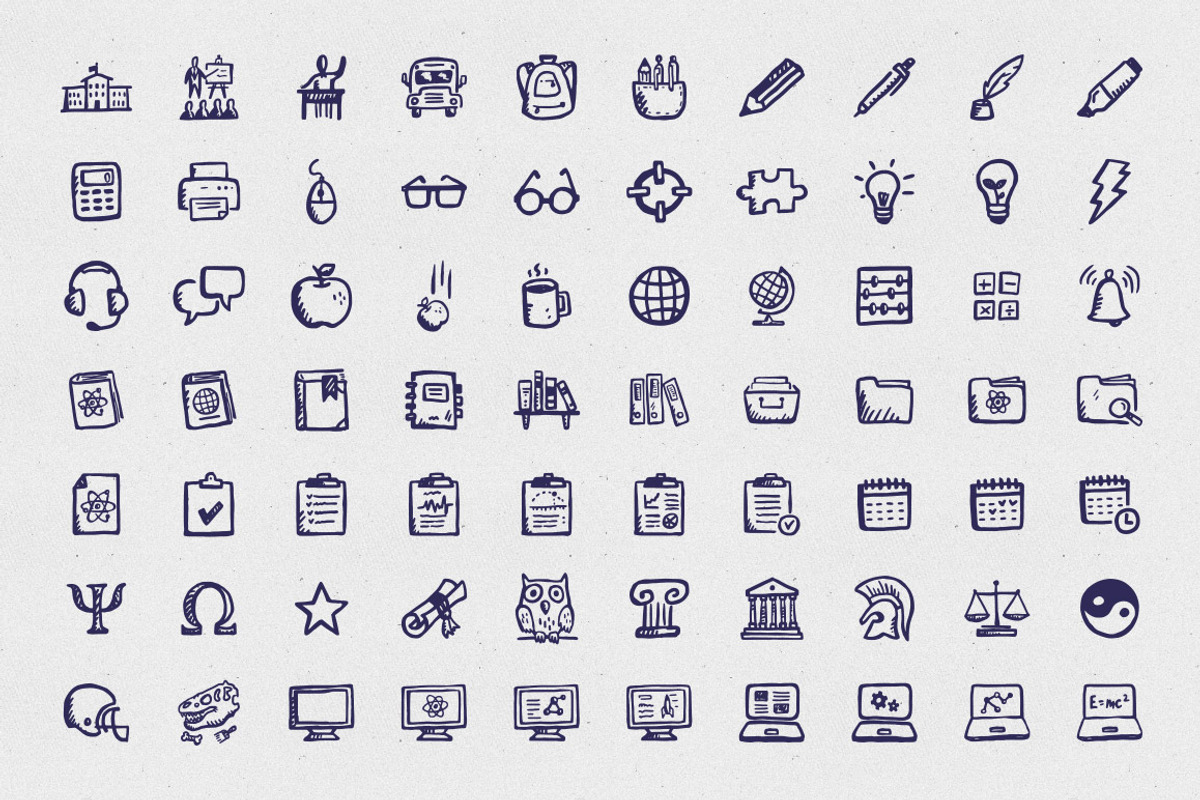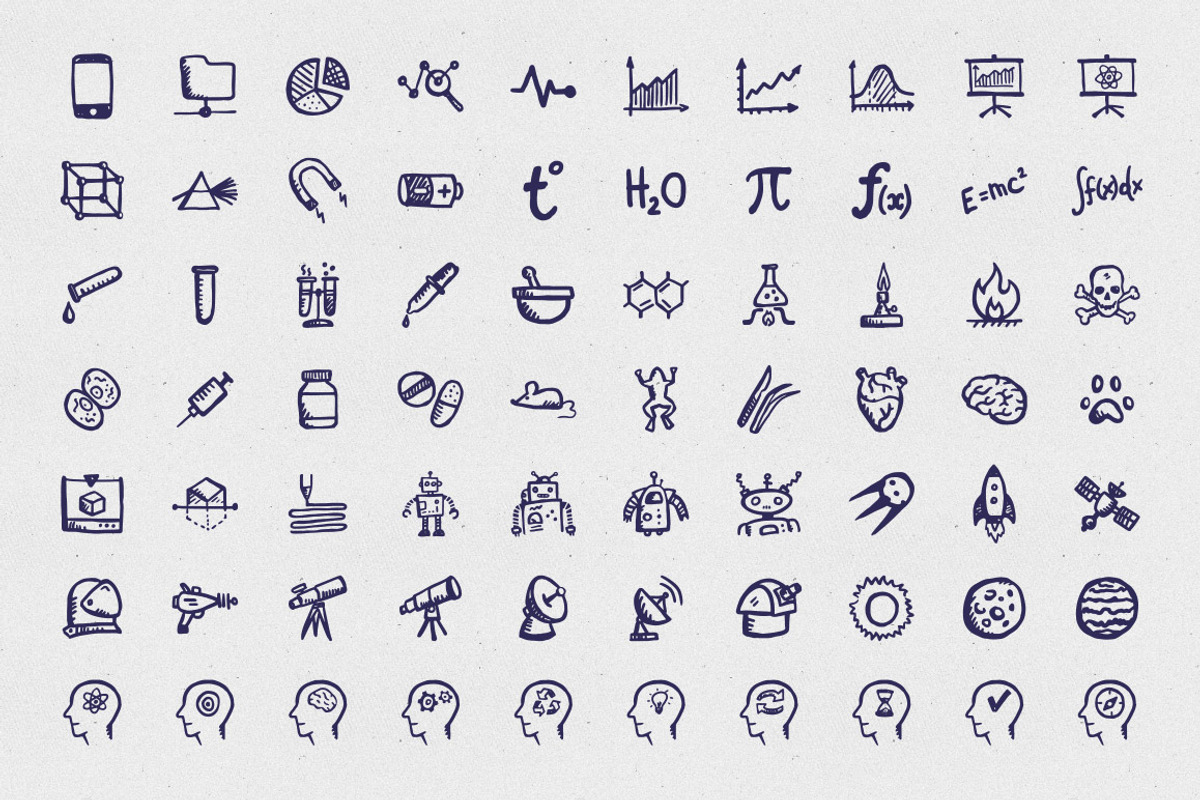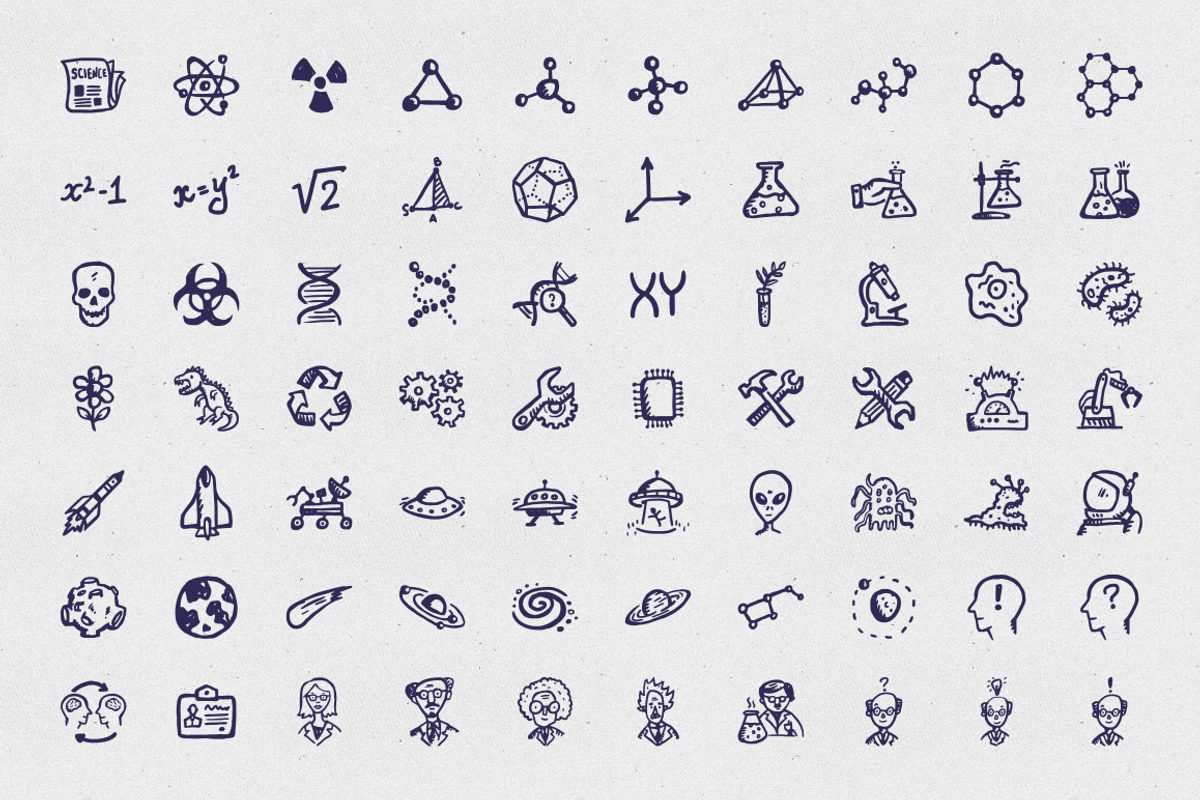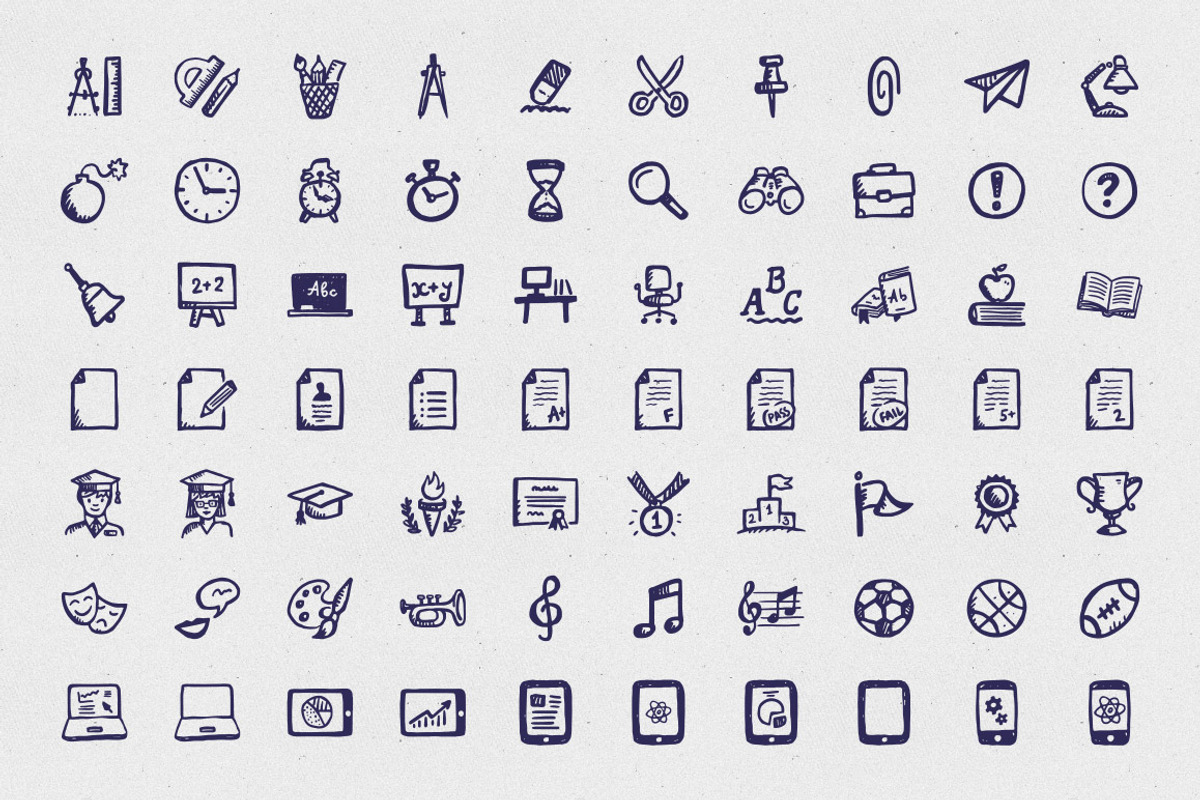
Brainy Icons Font
Brainy Icons Font by Hand-Drawn Goods is a font selected for branding, posters, packaging, typography.
- Education icon font includes 280 hand-drawn icons featured in the original Brainy Icons set by Hand-Drawn Goods.
- Brainy Icons Font is a science and education icon font that includes characters from the following categories: school, university, ideas, la
Why Brainy Icons Font is worth a look
Brainy Icons Font by Hand-Drawn Goods fits naturally into Branding, posters, packaging, typography.